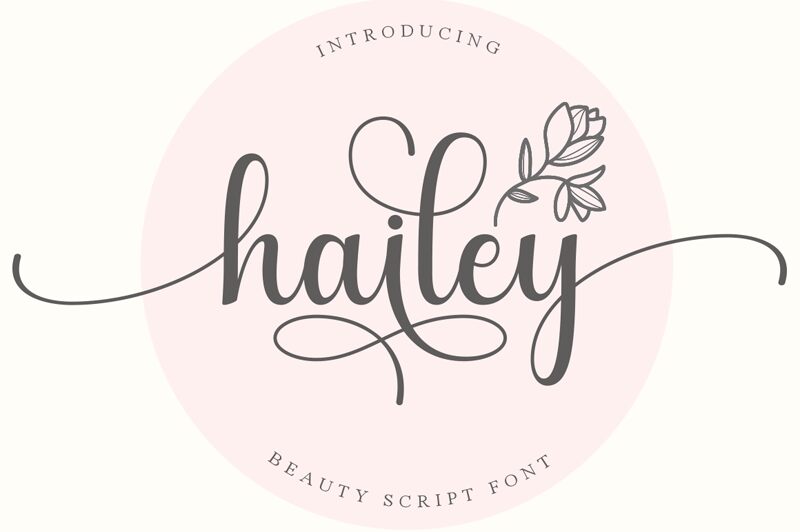
Hailey
Hailey, a captivating calligraphic font crafted by Fadlilah Studio, exudes a harmonious blend of elegance and fluidity. Its sweeping strokes and graceful curves evoke a sense of timeless sophistication, making it a visually striking addition to any design. The font's distinctive personality shines through its organic, hand-lettered aesthetic, seamlessly blending tradition with modern sensibilities.
This versatile typeface lends itself beautifully to a variety of design applications, from elegant wedding invitations and luxury brand identities to editorial layouts and eye-catching social media graphics. Its refined yet approachable character makes it a versatile choice for creating impactful, memorable designs across a wide range of industries and projects.